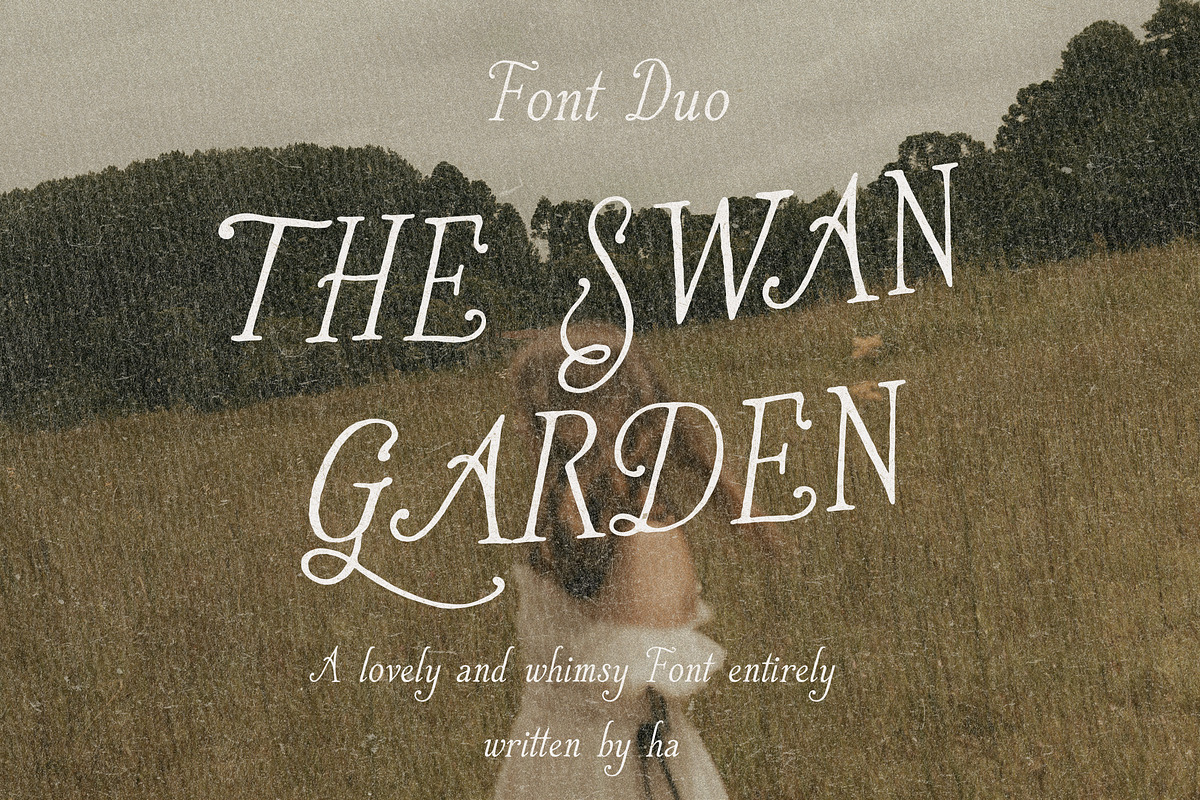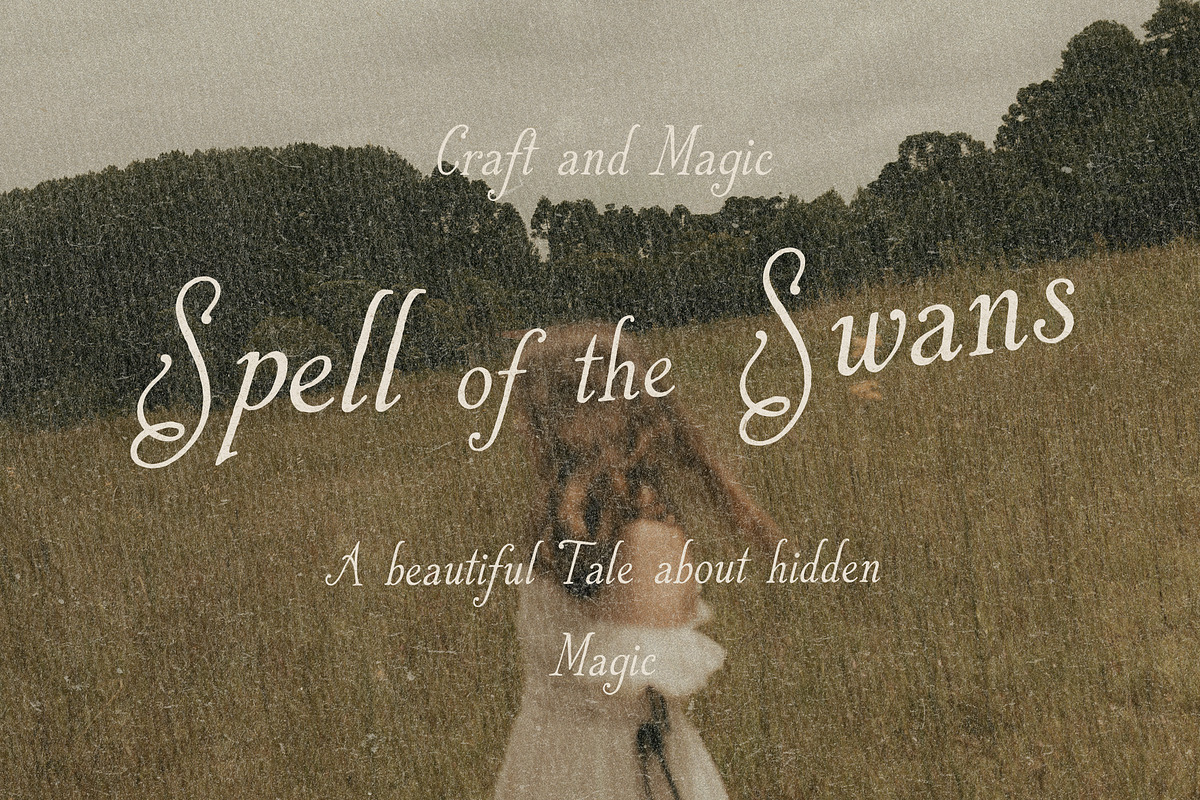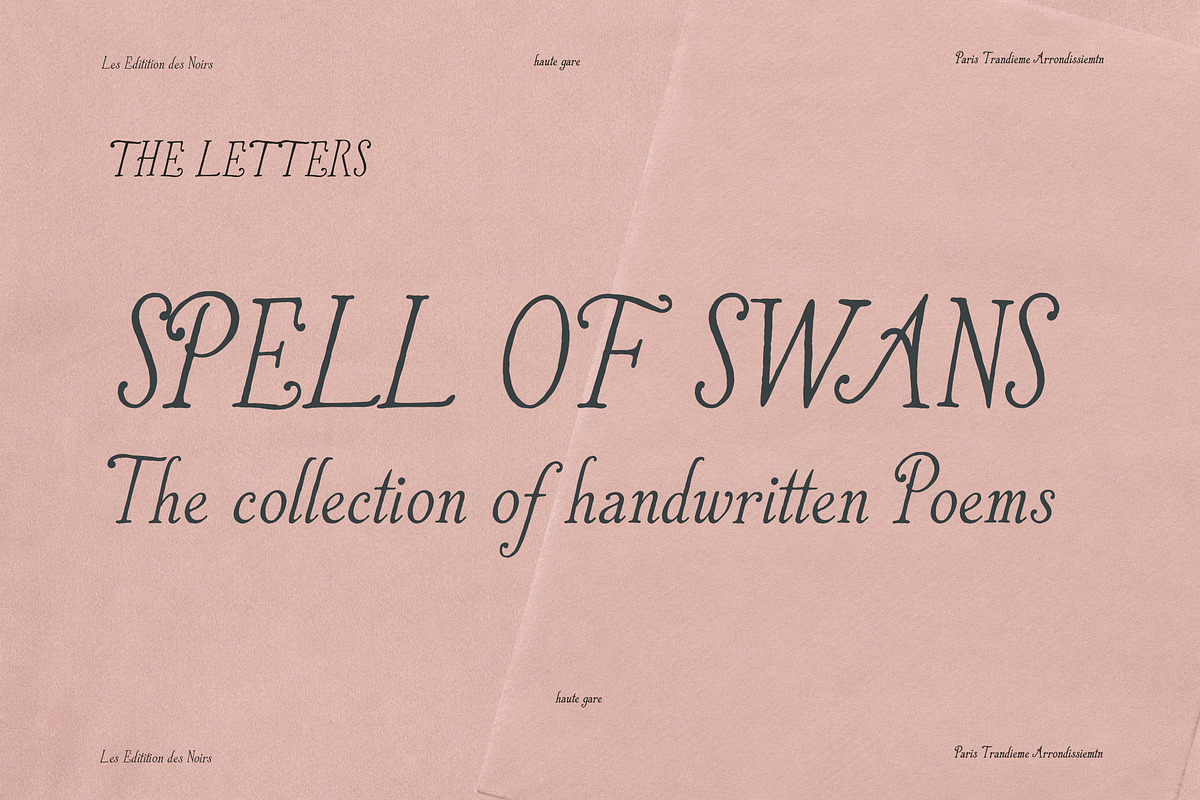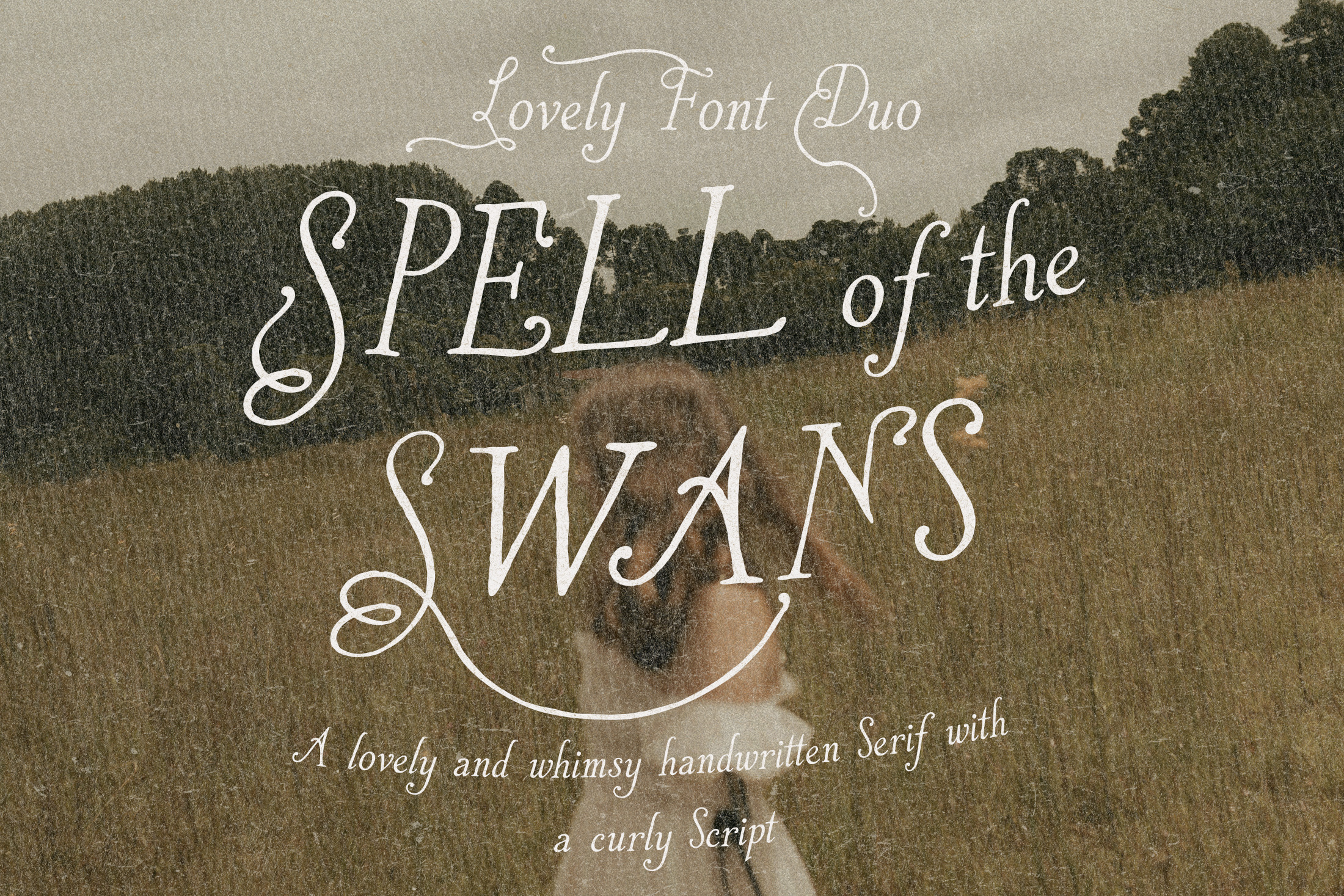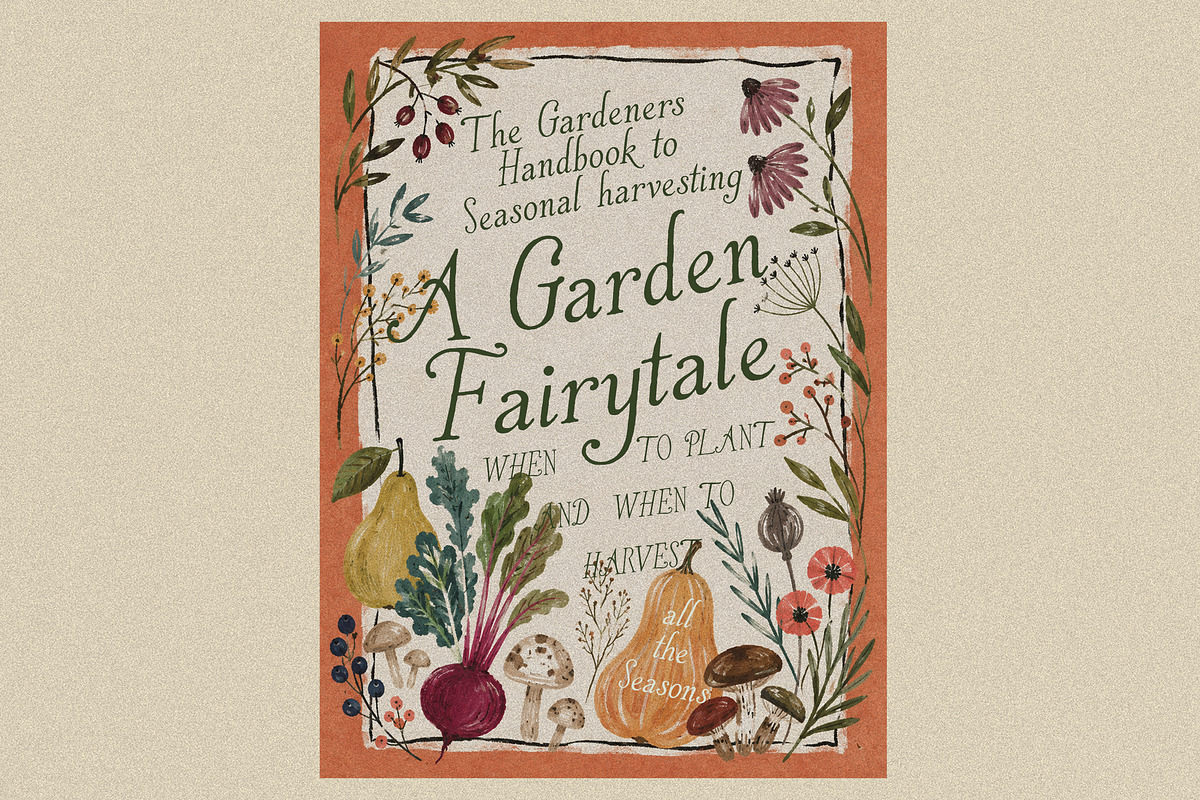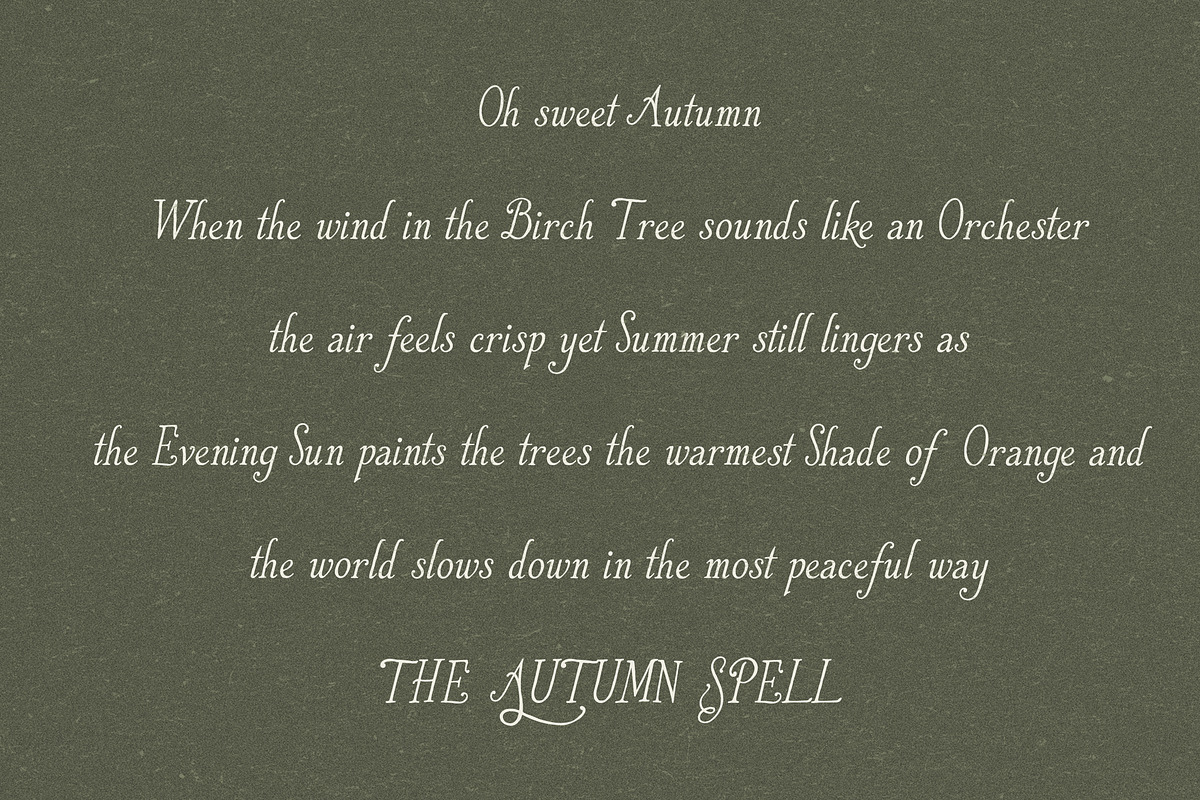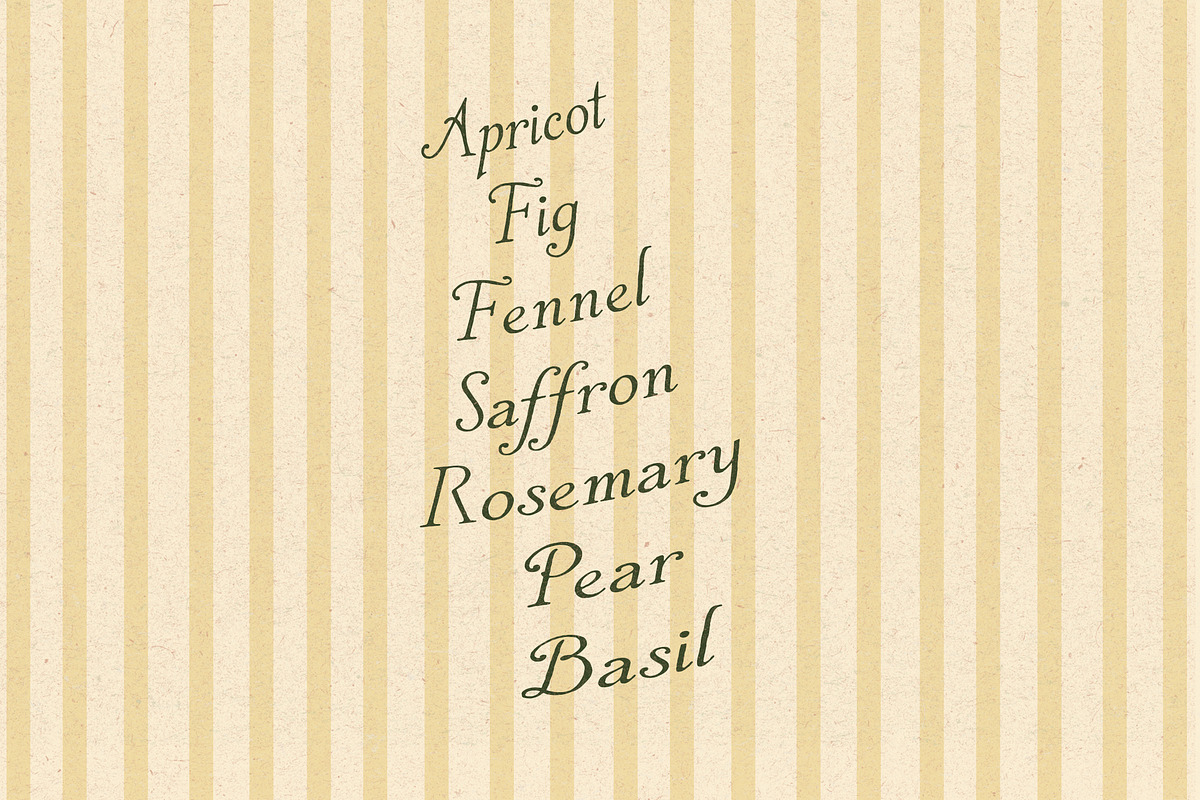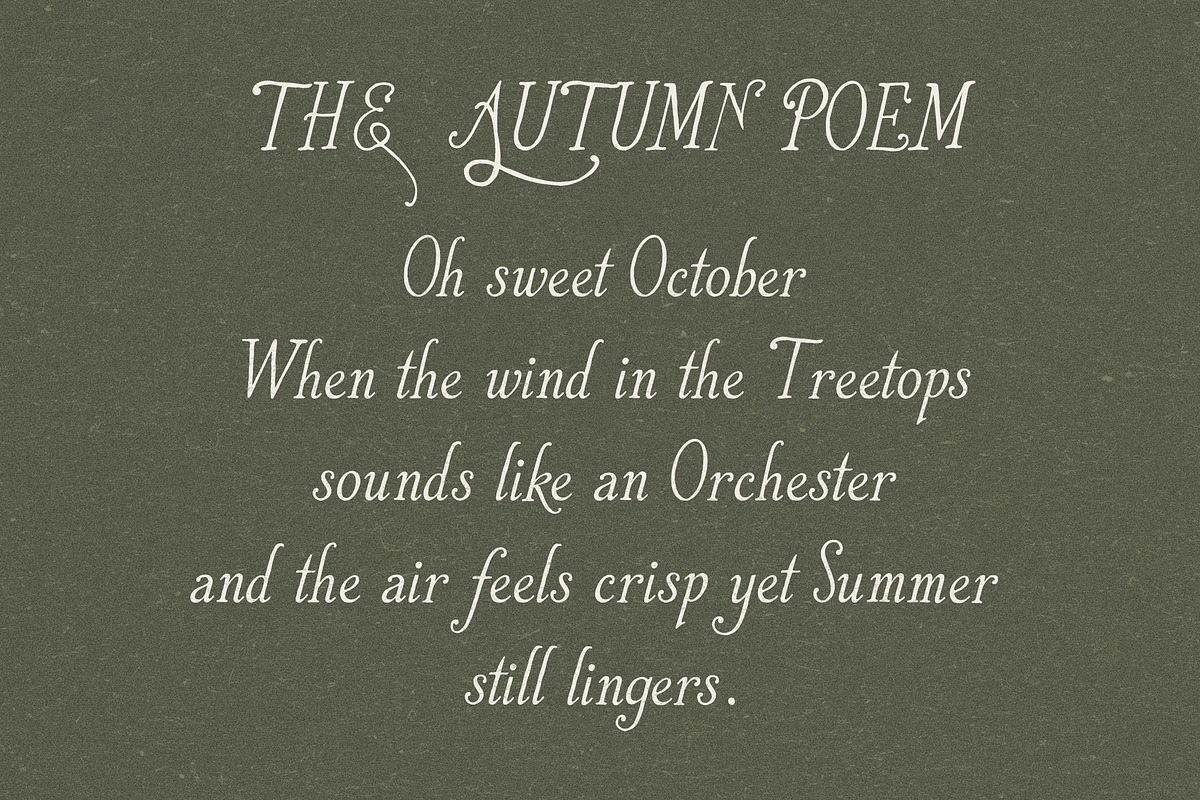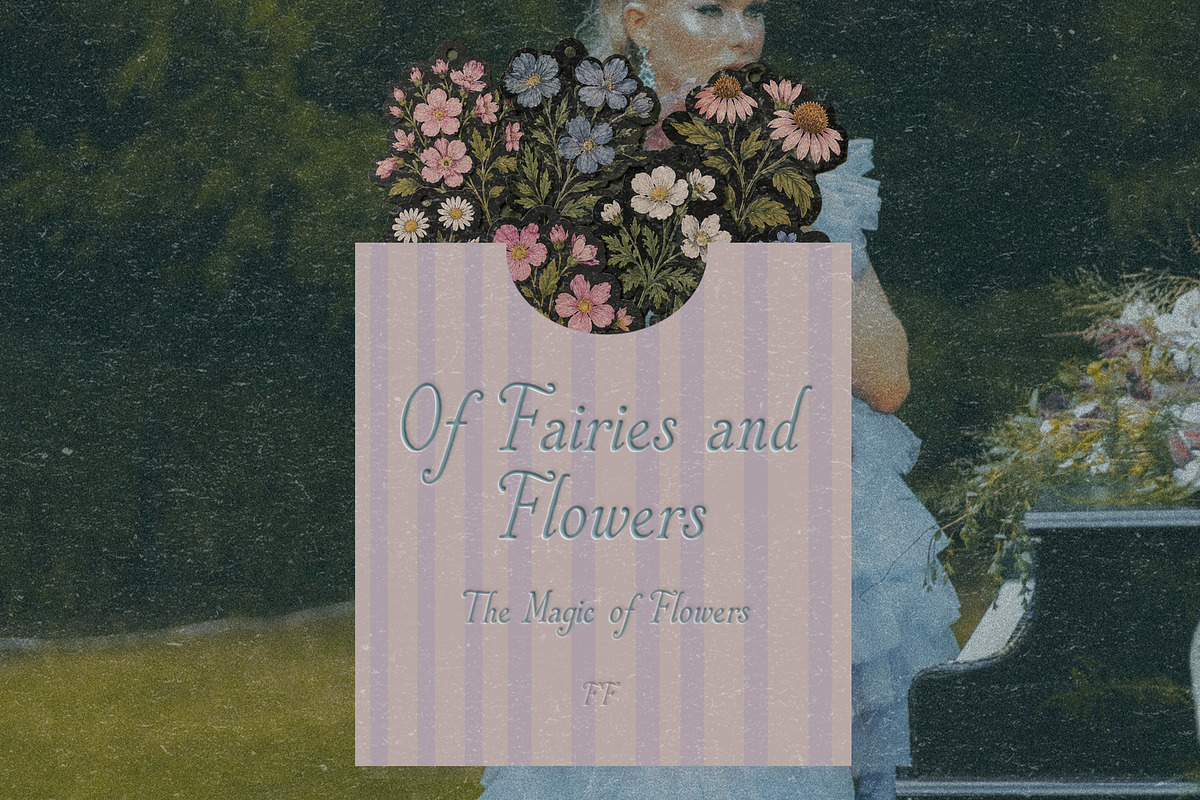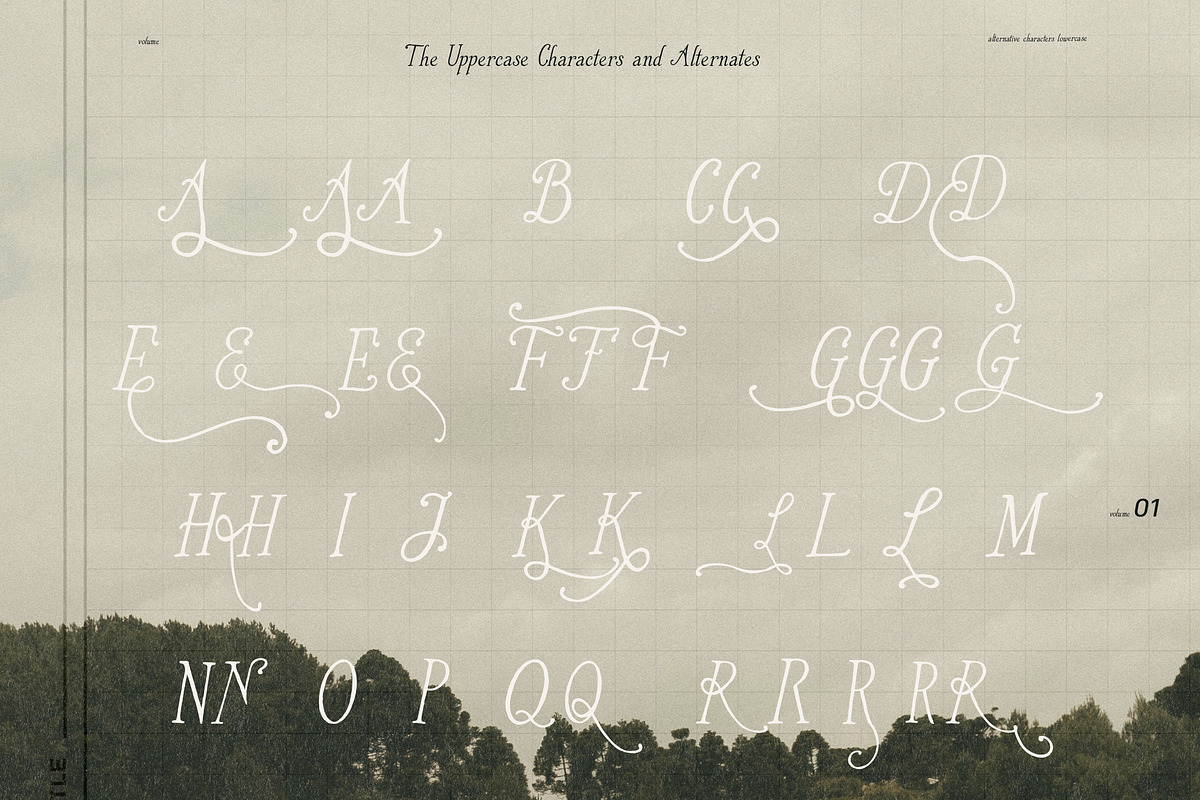
Whimsical Handwritten Serif Font Duo
The season of magic has started, and SpellofSwans brings fairytale-like whimsy to your artwork. Delicate yet expressive, this whimsical serif font blends playful elegance with a soft mystical charm, creating a look that feels both enchanting and refined. With its graceful curves, decorative swashes, and beautifully crafted alternates, SpellofSwans brings a romantic, storybook atmosphere to every word.
Each letters has carefully been crafted by hand with a visible handmade texture that subtly weaves the whimsy into every design. The set also comes with a curly and charming script, adding a playful vintage touch to the mix.